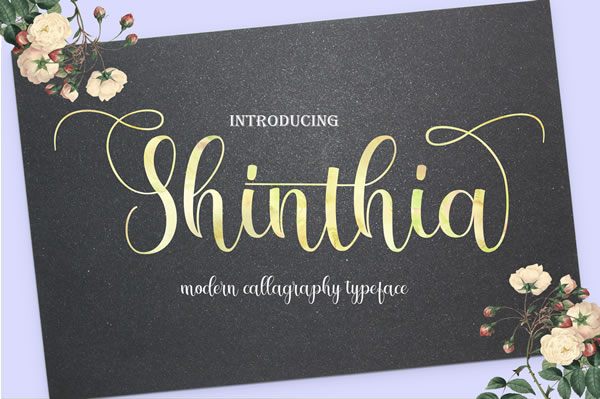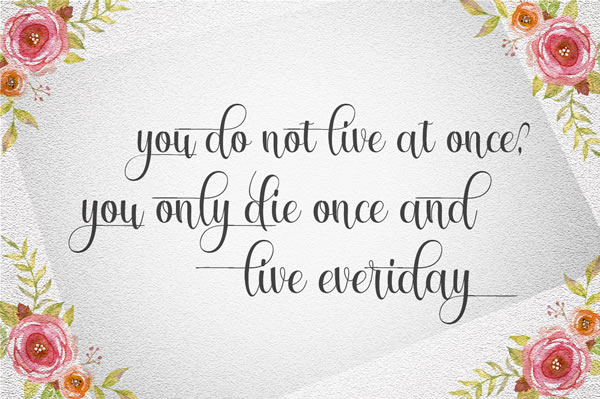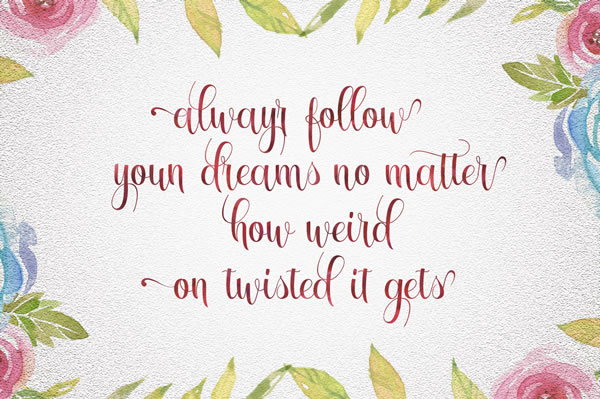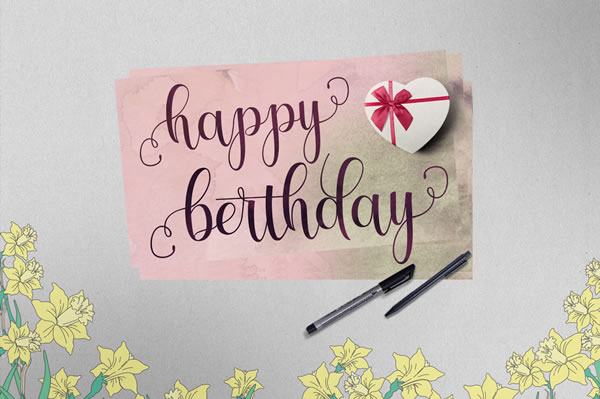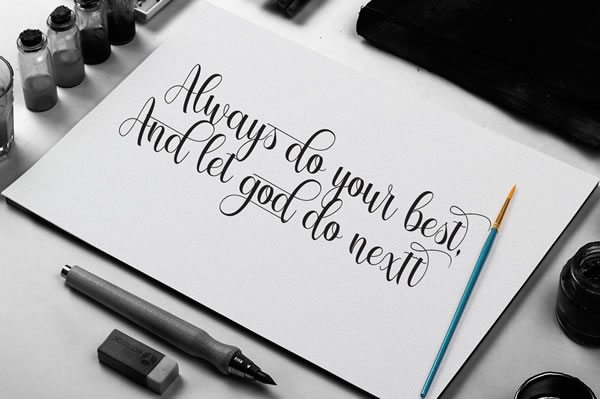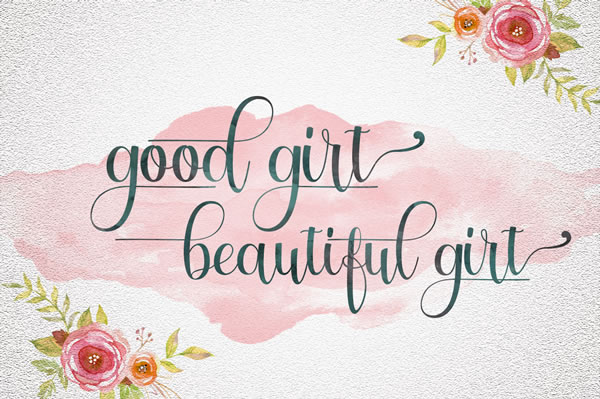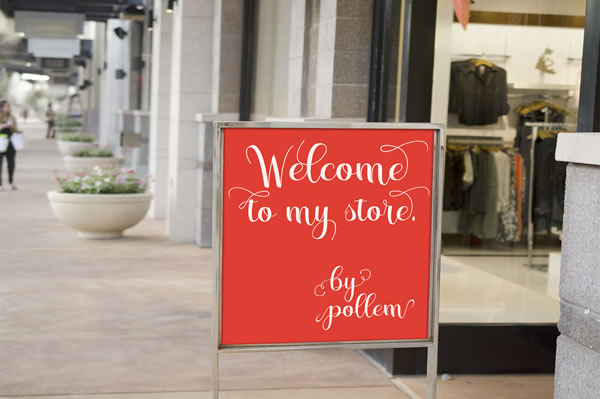
Shinthia Font
About Shinthia Font
Shintihia is a handmade calligraphy font. Created by the talented Polem foundry, this font is packed with OpenType features and stunning swashes.